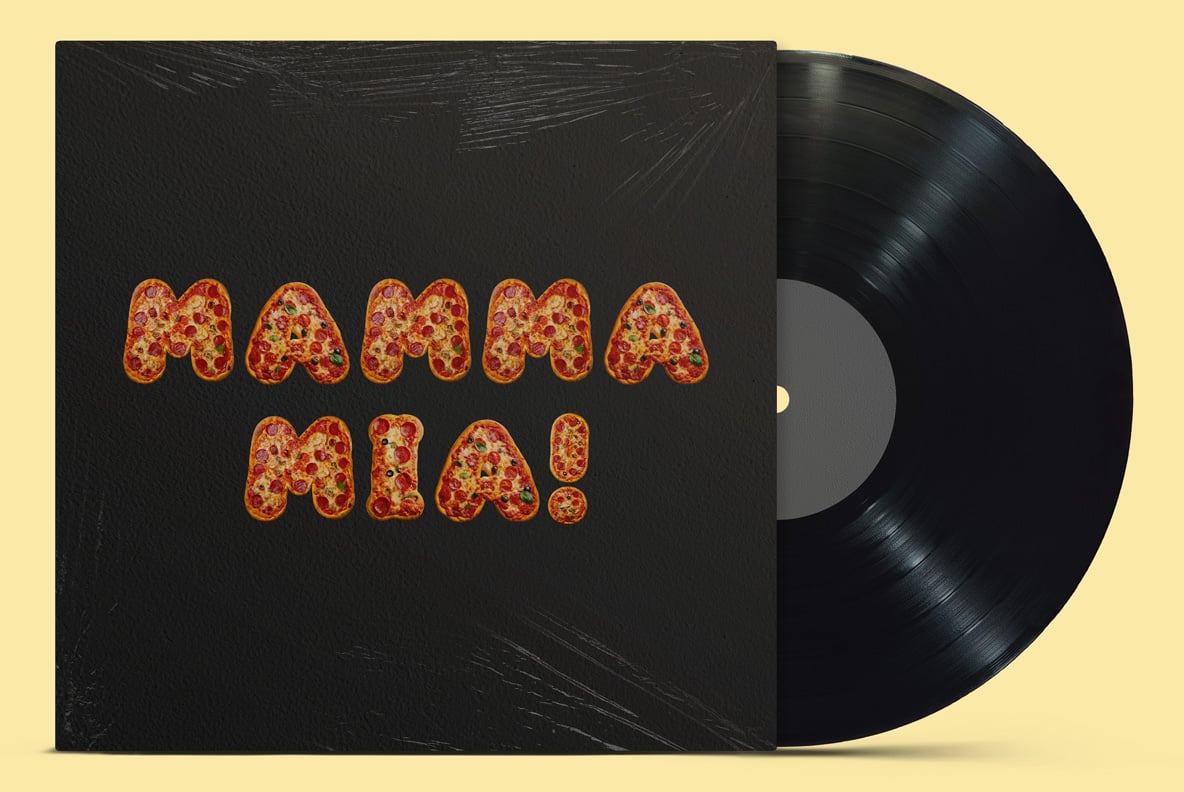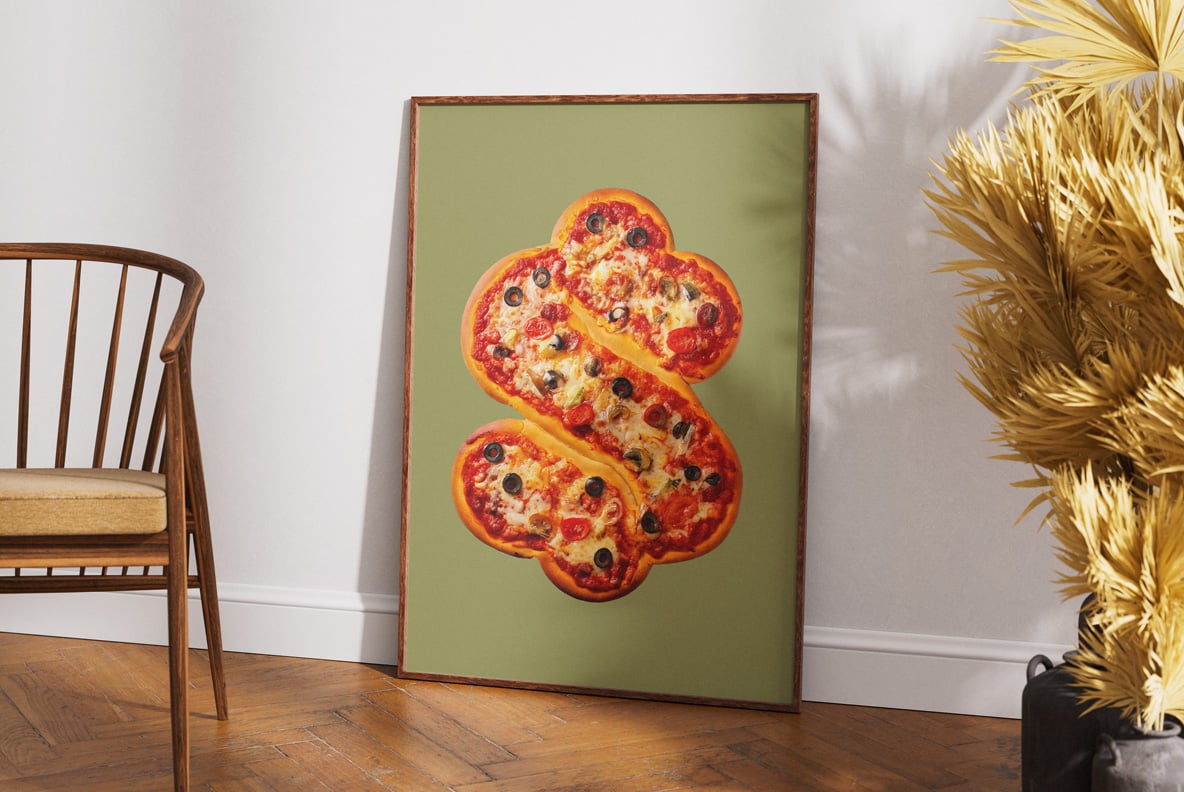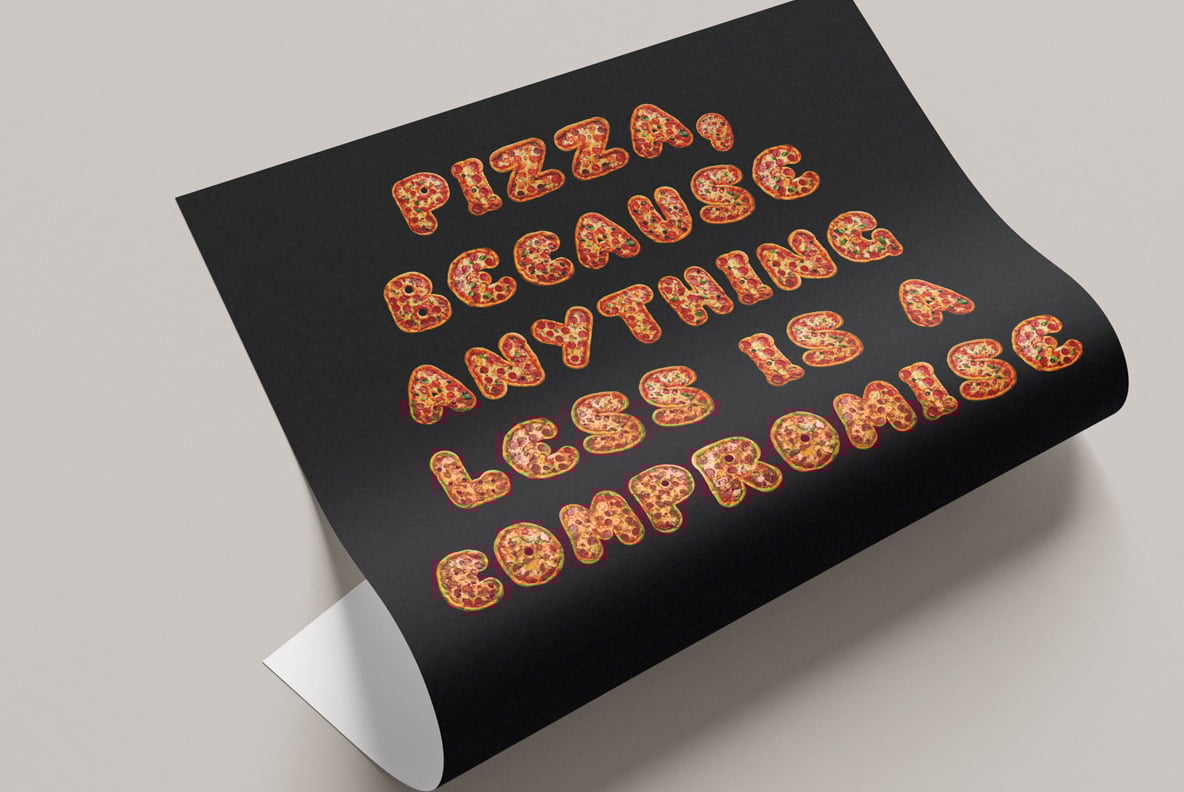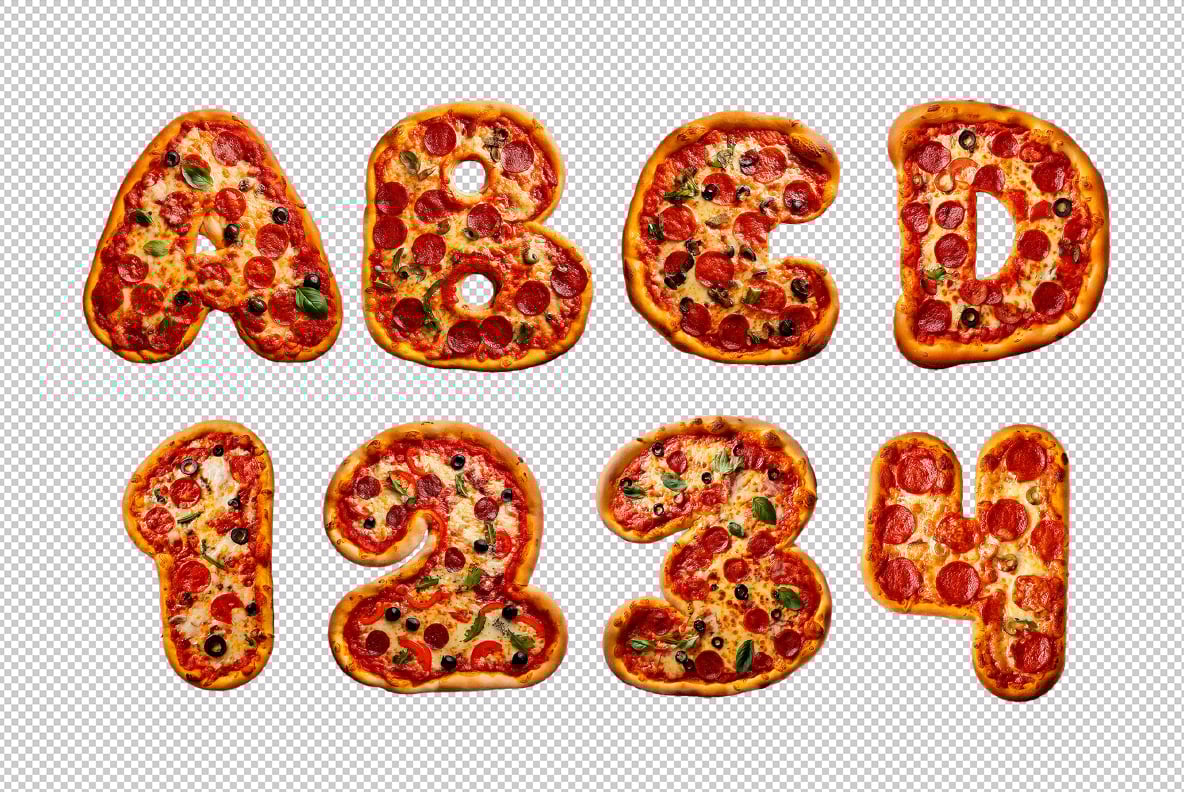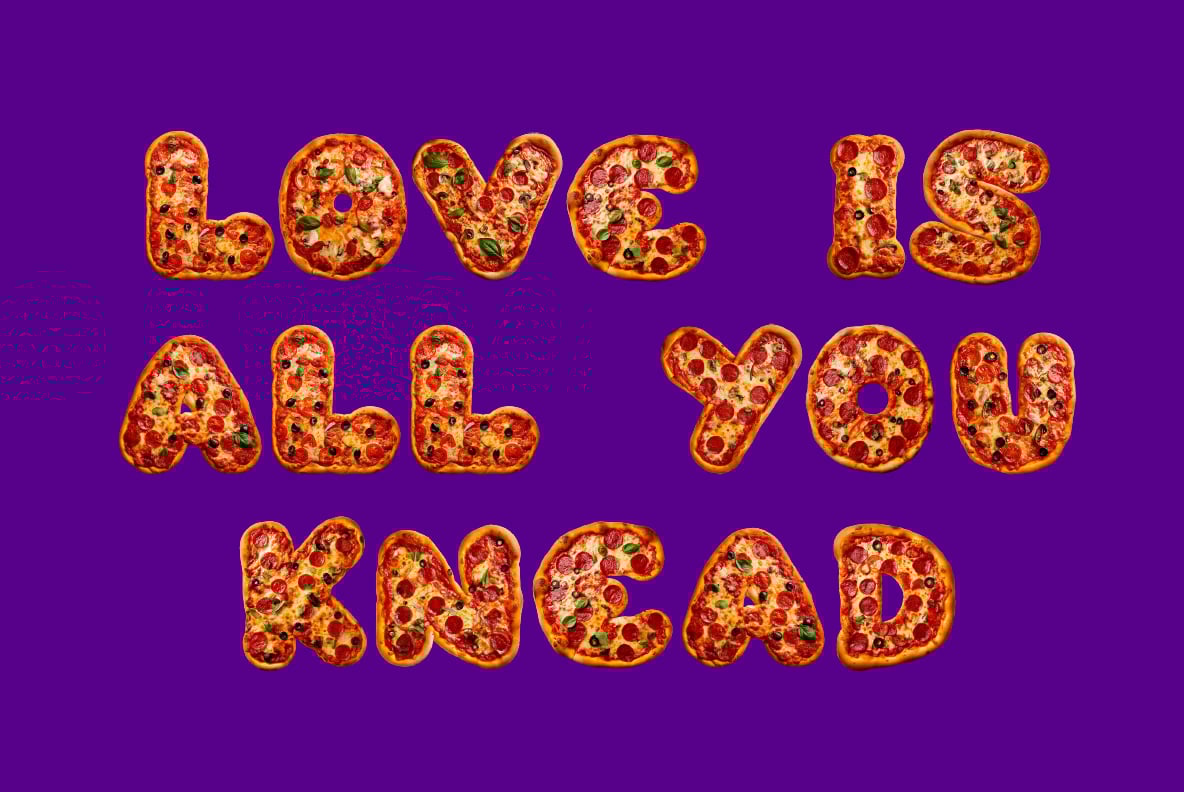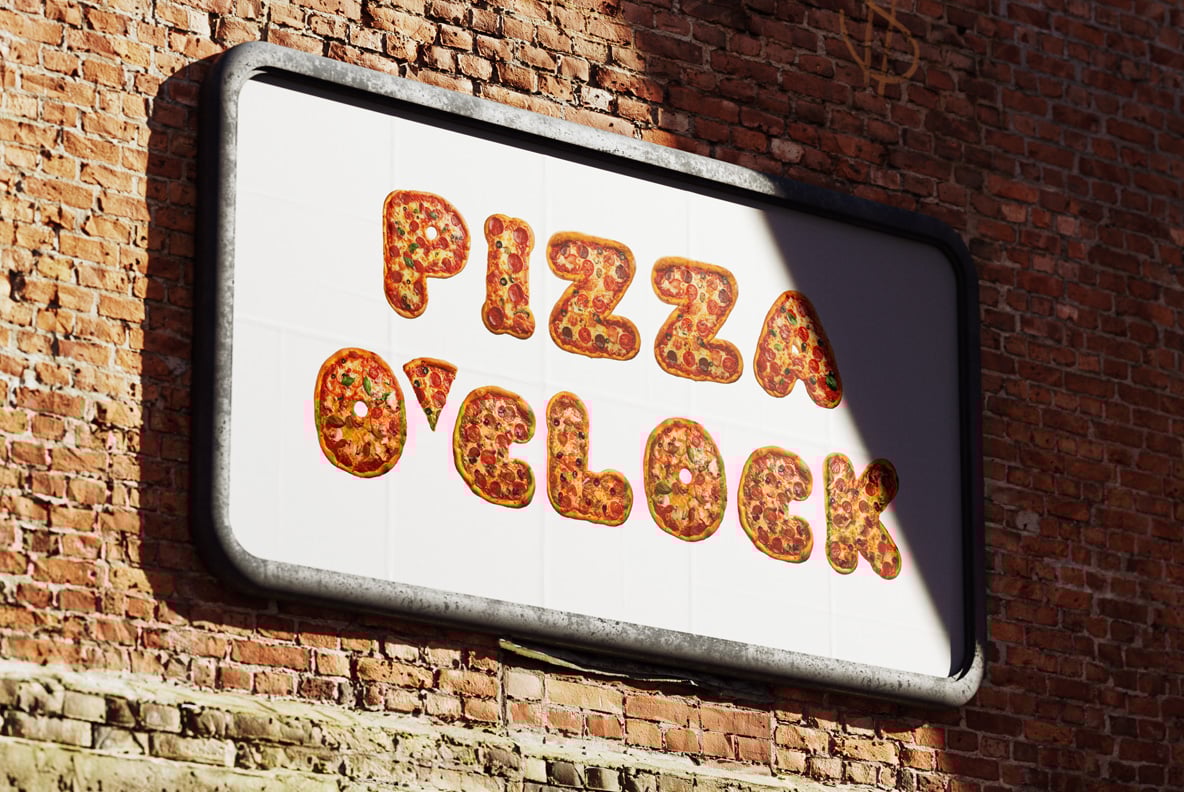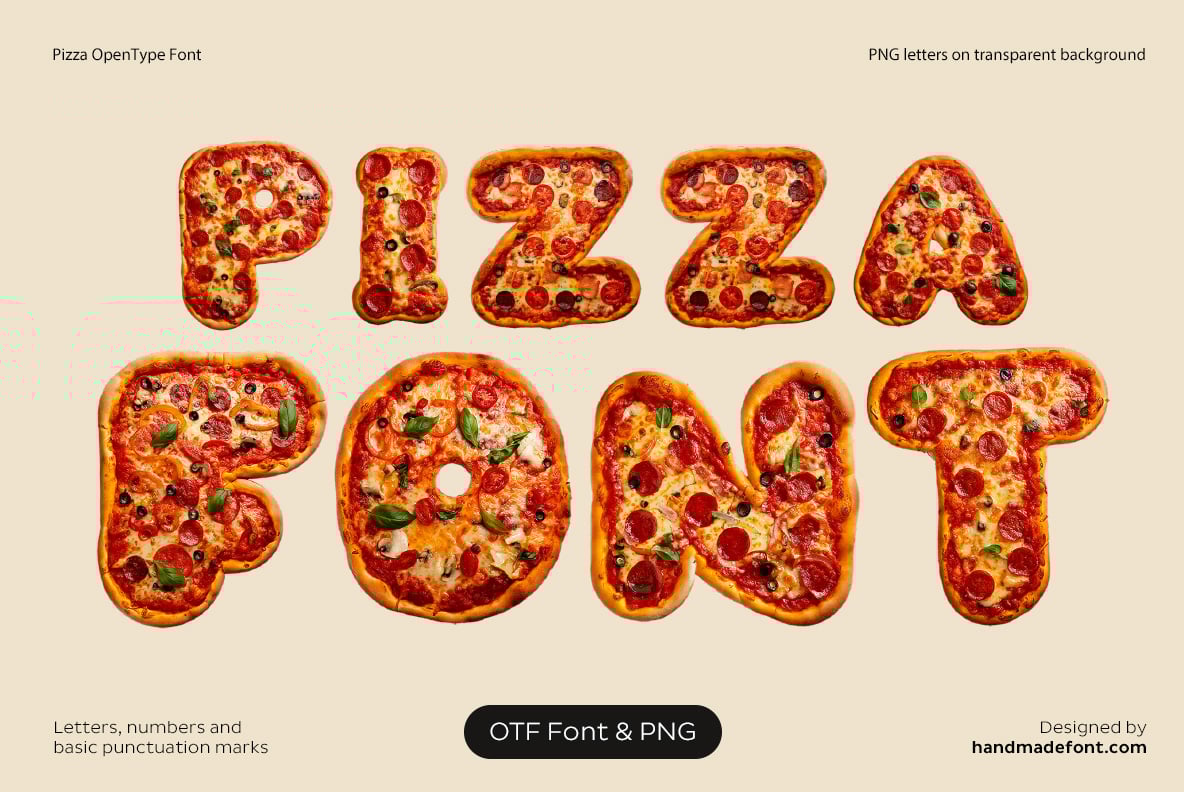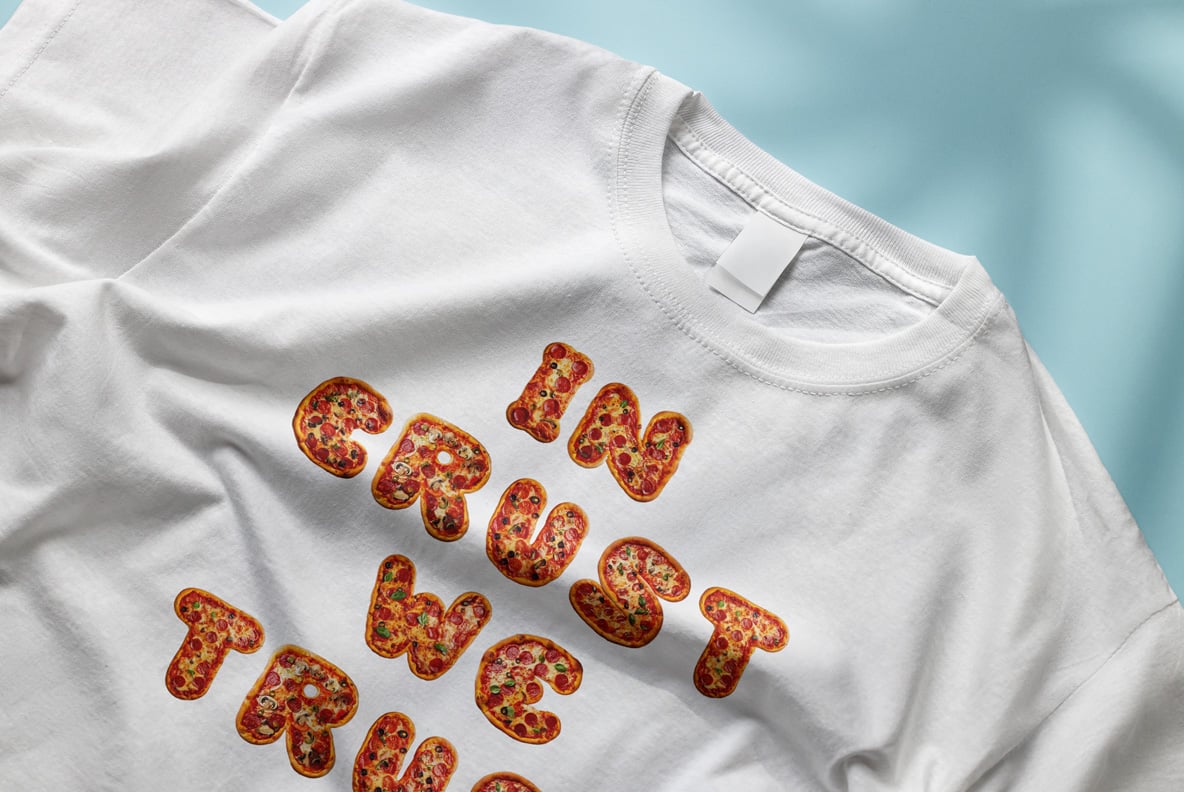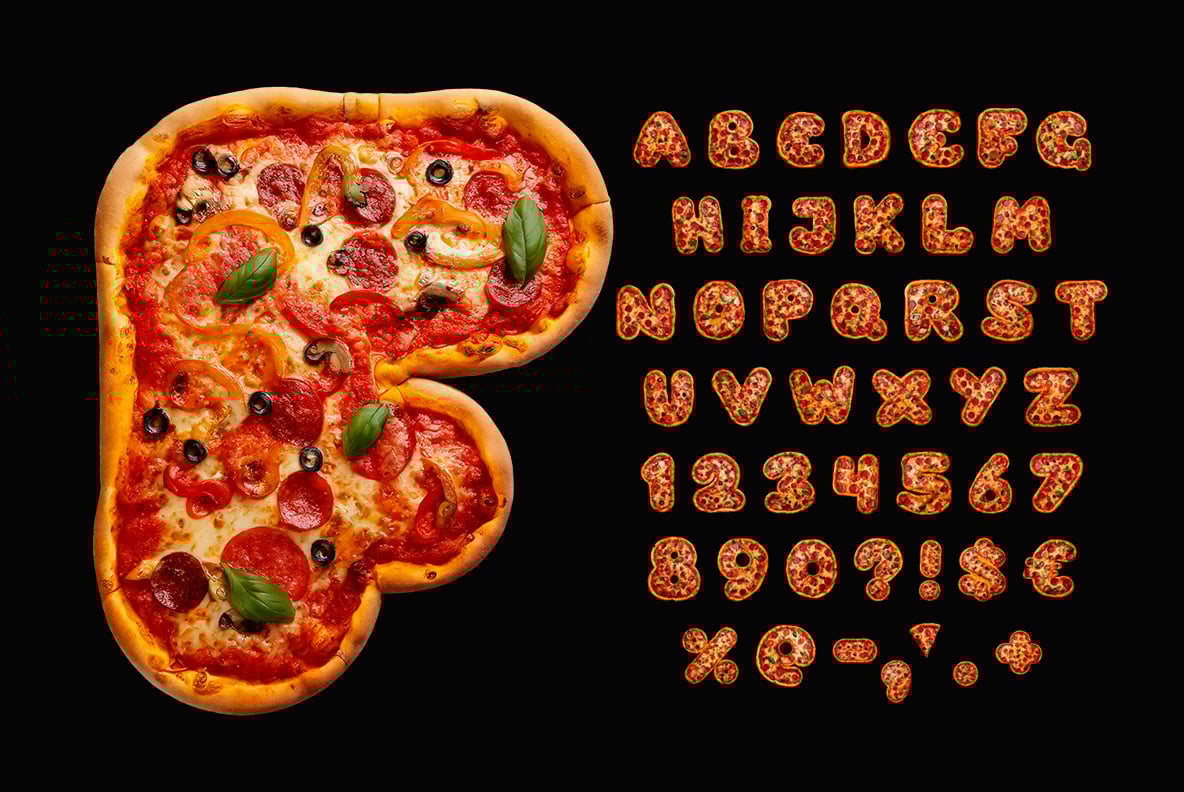
Pizza Font
Introducing Pizza Font – a deliciously fun typeface inspired by everyone's favorite Italian treat! Each letter is crafted to look like a slice of cheesy, saucy pizza goodness. Perfect for food lovers, Italian-themed designs, or playful projects, this font screams *mamma mia!* Add a tasty twist to your branding, menus, social media, or posters. With *Pizza Font*, every word becomes a mouthwatering masterpiece!
A high definition OpenType Font. Contains uppercase characters, numerals and basic punctuation. (Draw height roughly 800 pixels). All letters and glyphs that comprises this font you can see on the preview.
Others : ! ? - . ' $ € @